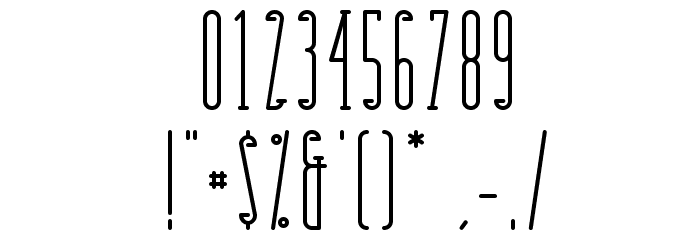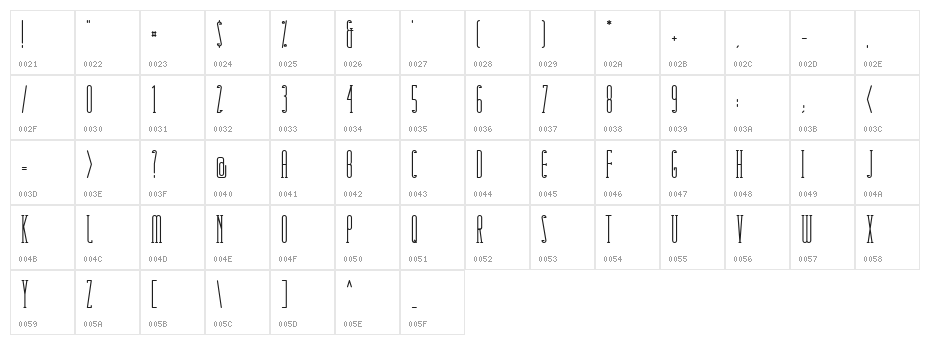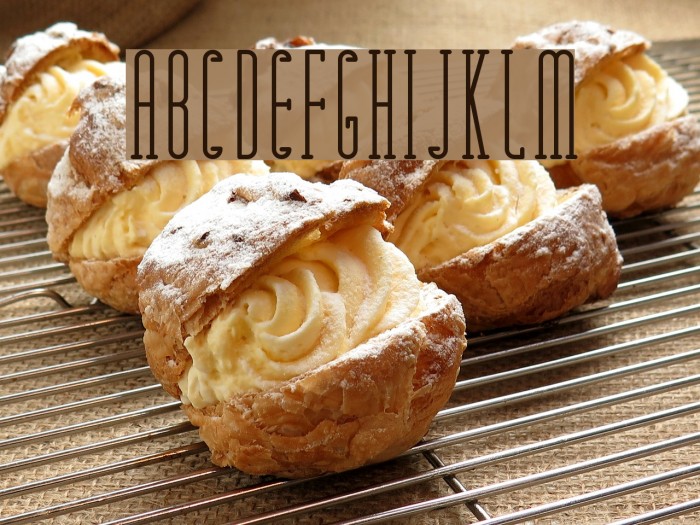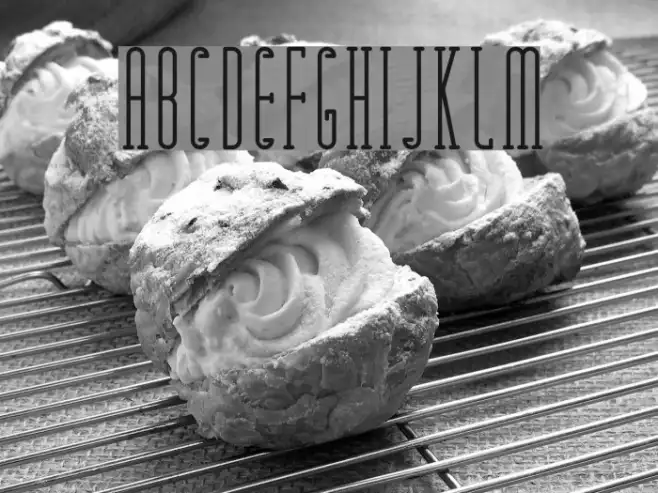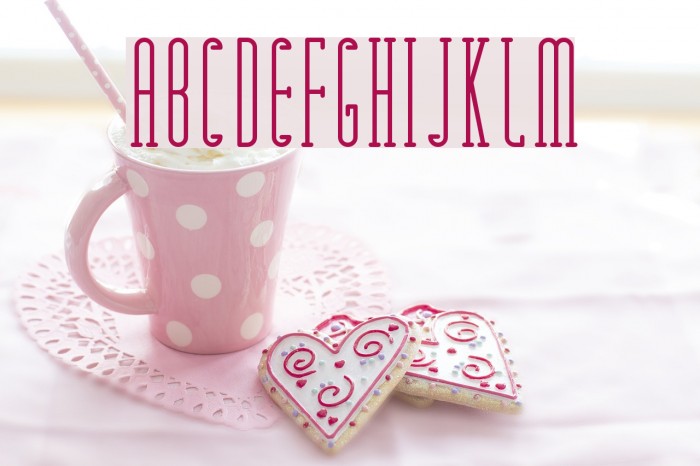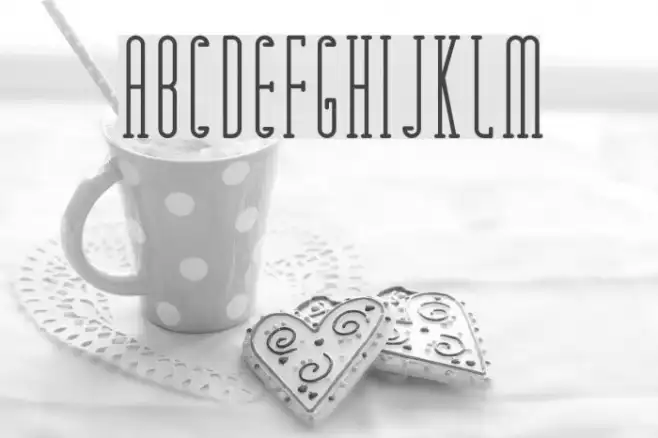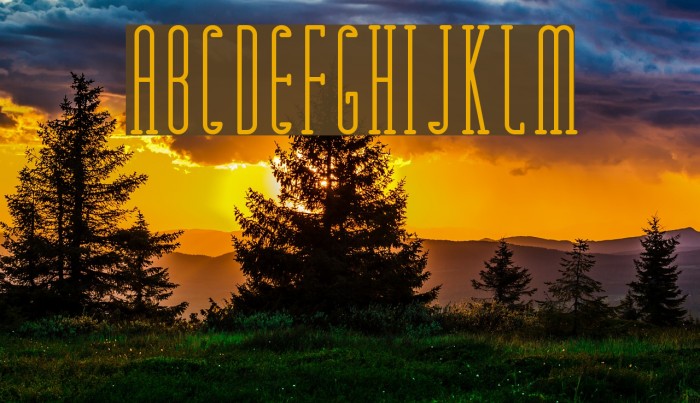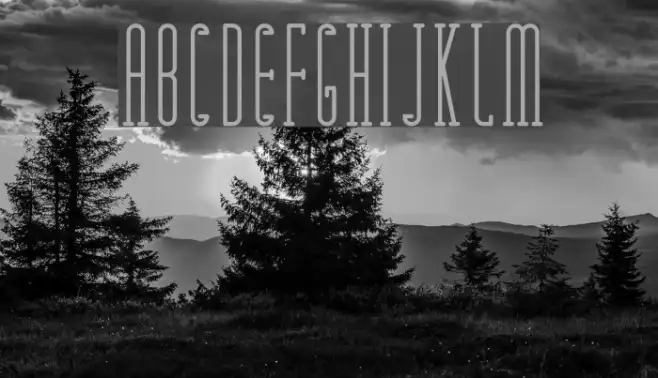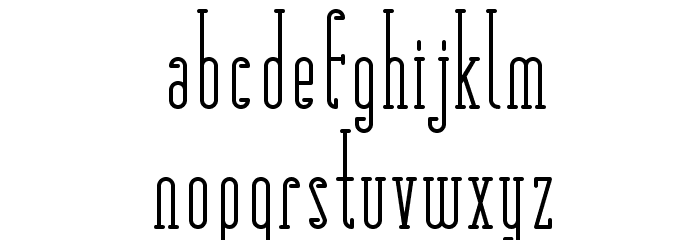
Matchbook Serif Font
Matchbook Serif Description
This font features a tall, narrow design with distinct serifs that give it a unique and elegant appearance. The uppercase letters are particularly elongated, creating a sense of sophistication and style. The lowercase letters maintain a consistent height, contributing to a balanced and cohesive look. The numerals are clean and straightforward, complementing the overall aesthetic. Special characters are well-integrated, ensuring versatility in various design contexts. The font's thin strokes and subtle serifs make it suitable for projects that require a touch of class and refinement.